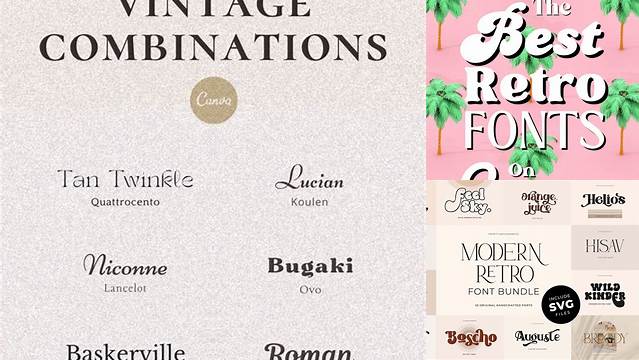
Retro Fonts On Canva: Design Like Mad Men!
Hey guys! Let's dive into the awesome world of retro sans serif fonts you can find right on Canva. If you're looking to add a touch of vintage charm to your designs, you've come to the right place. From groovy 70s vibes to sleek mid-century modern looks, we'll explore how to use these fonts to make your projects pop!
1. Understanding Retro Sans Serif Fonts
Retro sans serif fonts evoke a sense of nostalgia, bringing back design elements from past eras. These fonts often feature clean lines and geometric shapes, making them versatile for various design applications. Understanding retro sans serif fonts involves appreciating their historical context and how they can be used to create specific moods and styles.
When choosing a retro sans serif font, consider the overall tone of your project. Are you aiming for a playful and whimsical feel, or something more sophisticated and elegant? Different fonts will convey different emotions, so it's essential to select one that aligns with your design goals. For instance, a font with rounded edges might be perfect for a children's book, while a more angular font could be ideal for a branding project targeting a modern audience.
Experiment with different font pairings to enhance your designs. Combining a retro sans serif font with a contrasting serif font can create visual interest and balance. Play around with font sizes, weights, and styles to achieve the desired effect. Remember, the key is to create a harmonious composition that is both visually appealing and easy to read. Incorporating retro sans serif fonts into your design toolkit can significantly elevate your creative projects, offering a unique blend of vintage charm and modern appeal.
2. Top Retro Sans Serif Fonts Available on Canva
Canva offers a wide array of retro sans serif fonts that can add character and flair to your designs. Some popular choices include fonts inspired by the Art Deco era, mid-century modernism, and the groovy 1970s. Each font has its unique personality, making it easy to find the perfect fit for your project.
One standout option is a font reminiscent of classic movie posters from the 1950s. Its bold, geometric shapes and clean lines exude a sense of timeless elegance. Another great choice is a font that captures the playful spirit of the 1970s, with its rounded edges and whimsical curves. This font is perfect for creating eye-catching headlines and branding materials.
When exploring retro sans serif fonts, consider how they interact with other design elements. Experiment with different color palettes, textures, and imagery to create a cohesive and visually appealing composition. Don't be afraid to push the boundaries and try new things – the key is to have fun and let your creativity shine. By leveraging the diverse range of retro sans serif fonts available on Canva, you can create designs that are both stylish and timeless. Additionally, these fonts can evoke a sense of nostalgia and connect with your audience on a deeper level.
Once you've found a font that you like, take some time to experiment with its different styles and weights. Many retro fonts come in multiple variations, allowing you to fine-tune the look and feel of your design. Pay attention to the font's spacing and kerning, as these can significantly impact its readability and visual appeal. By taking the time to explore Canva's font library and experiment with different options, you can find the perfect retro font to bring your design vision to life. Remember to save your favorite fonts for easy access in future projects.
4. Designing with Retro Sans Serif Fonts in Canva
Designing with retro sans serif fonts in Canva opens up a world of creative possibilities. These fonts can add a unique touch to various projects, from posters and logos to social media graphics and presentations. The key is to use them strategically to create a cohesive and visually appealing design.
When working with retro sans serif fonts, consider the overall aesthetic you're aiming for. Are you going for a bold and vibrant look, or something more subtle and understated? The font you choose should align with the overall mood and message of your design. Experiment with different color palettes and imagery to complement the font and enhance its retro appeal.
One effective technique is to pair retro sans serif fonts with vintage-inspired illustrations and graphics. This can create a sense of authenticity and transport your audience back in time. Pay attention to the spacing and layout of your design, ensuring that the font is legible and visually balanced. Don't be afraid to experiment with different font sizes and weights to create visual hierarchy and draw attention to key elements. By mastering the art of designing with retro sans serif fonts in Canva, you can create designs that are both stylish and memorable. It’s all about playing around and seeing what works best for your particular project!
5. Combining Retro Fonts with Modern Elements
Combining retro fonts with modern elements is a fantastic way to create designs that are both timeless and contemporary. This approach allows you to blend the charm of vintage typography with the sleekness of modern design principles, resulting in a unique and eye-catching aesthetic.
One effective technique is to pair retro sans serif fonts with minimalist layouts and clean, modern imagery. This creates a sense of contrast that can be visually striking. For example, you could use a bold, retro-inspired font for a headline and then pair it with a simple, geometric background. Alternatively, you could use a retro font for body text and then incorporate modern illustrations or photographs.
When combining retro fonts with modern elements, it's important to maintain a sense of balance. Avoid overwhelming your design with too many conflicting styles. Instead, focus on creating a harmonious composition that feels both cohesive and visually appealing. Experiment with different color palettes and textures to enhance the overall effect. By mastering the art of blending retro and modern elements, you can create designs that are both stylish and timeless. This approach is perfect for branding projects, website designs, and any other creative endeavor where you want to make a statement.
6. Best Practices for Using Retro Fonts
Using retro fonts effectively requires a thoughtful approach. While these fonts can add a lot of character to your designs, it's important to use them judiciously to avoid overwhelming your audience. Here are some best practices to keep in mind:
First, consider the context of your design. Retro fonts are most effective when they align with the overall theme and message of your project. If you're designing a poster for a 1970s-themed party, a groovy, retro-inspired font would be a perfect choice. However, if you're designing a website for a modern tech company, a more contemporary font might be more appropriate.
Second, pay attention to readability. While retro fonts can be visually appealing, they can also be difficult to read if they're not used correctly. Choose fonts that are legible at the size you'll be using them, and avoid using too many different fonts in the same design. Stick to a maximum of two or three fonts to maintain a sense of visual harmony.
Third, experiment with different font pairings. Combining a retro sans serif font with a contrasting serif font can create visual interest and balance. Just make sure that the fonts you choose complement each other and don't clash. By following these best practices, you can use retro fonts to create designs that are both stylish and effective.
7. Color Palettes that Complement Retro Fonts
Choosing the right color palette is crucial when working with retro fonts. Certain colors can enhance the vintage feel of these fonts, while others might clash and detract from their appeal. Here are some color palettes that tend to work well with retro fonts:
- Earthy Tones: Think warm browns, oranges, and yellows. These colors evoke a sense of nostalgia and pair perfectly with fonts inspired by the 1970s.
- Pastels: Soft pinks, blues, and greens can create a dreamy, vintage aesthetic that complements fonts from the 1950s and 1960s.
- Bold and Bright: Don't be afraid to use vibrant colors like red, blue, and yellow. These colors were popular in mid-century modern design and can add a playful touch to your designs.
When selecting a color palette, consider the overall mood and message of your design. Are you aiming for a fun and playful vibe, or something more sophisticated and elegant? Choose colors that align with your design goals and enhance the retro appeal of your fonts. Experimenting with different color combinations is key to finding the perfect palette for your project. Remember, the goal is to create a visually appealing and cohesive design that captures the essence of the retro aesthetic.
8. Creating Logos with Retro Sans Serif Fonts on Canva
Creating logos with retro sans serif fonts on Canva can give your brand a unique and memorable identity. These fonts evoke a sense of nostalgia and can help your logo stand out from the crowd. Here's how to make the most of retro fonts in your logo design:
Start by choosing a font that aligns with your brand's personality and values. Retro sans serif fonts come in a variety of styles, from bold and playful to sleek and sophisticated. Select a font that reflects the essence of your brand and appeals to your target audience.
Next, consider the overall design of your logo. Keep it simple and memorable, and avoid using too many different elements. A well-designed logo should be easily recognizable and scalable, so it looks great on everything from business cards to websites.
Experiment with different color palettes and imagery to complement your font and enhance the retro appeal of your logo. Use colors that evoke a sense of nostalgia and align with your brand's aesthetic. Don't be afraid to get creative and try new things. The key is to create a logo that is both visually appealing and representative of your brand.
9. Social Media Graphics Using Retro Fonts
Using retro fonts in your social media graphics is a great way to grab attention and create a cohesive brand identity. These fonts can add a unique touch to your posts and help you stand out from the sea of content on social media. Here's how to use retro fonts effectively in your social media graphics:
Choose fonts that are legible and visually appealing. Social media graphics are often viewed on small screens, so it's important to select fonts that are easy to read. Avoid using fonts that are too decorative or intricate, as these can be difficult to decipher on smaller devices.
Use retro fonts to create eye-catching headlines and captions. These fonts can add a touch of personality to your posts and help you convey your message in a fun and engaging way. Experiment with different font sizes and weights to create visual hierarchy and draw attention to key elements.
Pair retro fonts with complementary colors and imagery. Choose colors that align with your brand's aesthetic and evoke the desired mood. Use high-quality images that are visually appealing and relevant to your content. By using retro fonts effectively in your social media graphics, you can create a consistent brand identity and engage your audience.
10. Website Design with Retro Sans Serif Fonts
Incorporating retro sans serif fonts into your website design can create a unique and memorable user experience. These fonts evoke a sense of nostalgia and can help your website stand out from the crowd. However, it's important to use retro fonts strategically to ensure that your website remains user-friendly and accessible.
Choose fonts that are legible and easy to read. Website visitors should be able to quickly scan your content and find the information they need. Avoid using fonts that are too decorative or intricate, as these can be difficult to read on screen.
Use retro fonts to create visually appealing headlines and subheadings. These fonts can add a touch of personality to your website and help you convey your message in a fun and engaging way. Experiment with different font sizes and weights to create visual hierarchy and draw attention to key elements.
Pair retro fonts with complementary colors and imagery. Choose colors that align with your brand's aesthetic and evoke the desired mood. Use high-quality images that are visually appealing and relevant to your content. By using retro fonts effectively in your website design, you can create a unique and engaging online presence that resonates with your target audience.
11. Retro Font Pairing Ideas for Canva
Finding the perfect font pairing can be tricky, but when it comes to retro fonts, some combinations just sing! Think about pairing a bold, chunky sans serif with a delicate script font for a cool contrast. Or, try matching a clean, geometric sans serif with a slightly more ornate serif for a touch of elegance.
The key is to experiment and see what works best for your design. Canva makes it easy to try out different font combinations and see how they look together. Don't be afraid to mix and match until you find a pairing that you love.
Another great tip is to consider the overall mood of your design. If you're going for a fun, playful vibe, try pairing two contrasting retro fonts. If you're aiming for a more sophisticated look, stick to a more classic pairing with a subtle sans serif and a refined serif. Remember, the right font pairing can elevate your design and make it truly stand out!
12. Free vs. Premium Retro Fonts on Canva
Canva offers both free and premium retro fonts, so you have plenty of options to choose from regardless of your budget. Free fonts are a great way to get started and experiment with different styles, while premium fonts offer more unique and high-quality designs.
When choosing between free and premium fonts, consider the specific needs of your project. If you're working on a small, personal project, a free font might be all you need. However, if you're designing a logo or branding materials for a business, investing in a premium font can be worth it for the added quality and uniqueness.
Canva's premium fonts are often designed by professional typographers and offer more advanced features, such as ligatures and alternate characters. They also come with a commercial license, which means you can use them for both personal and commercial projects without any restrictions. So, weigh your options and choose the fonts that best fit your needs and budget!
13. Retro Fonts for Posters and Flyers
Designing posters and flyers with retro fonts can really make your message pop! The right font can instantly transport your audience back in time and create a sense of nostalgia. Think about using bold, eye-catching fonts for headlines and smaller, more legible fonts for body text.
When choosing retro fonts for posters and flyers, consider the overall theme and message of your design. If you're promoting a 1950s-themed event, look for fonts that evoke that era. If you're creating a poster for a modern business, choose a retro font that still feels contemporary and relevant.
Color also plays a big role in poster and flyer design. Experiment with different color combinations to find a palette that complements your font and enhances the overall retro feel. Don't be afraid to use bold, contrasting colors to grab attention and make your design stand out! Just make sure your text can still be read easily!
14. Retro Fonts for Branding
Using retro fonts for branding can help your business stand out and create a memorable identity. A well-chosen font can convey your brand's personality and values, and create a connection with your target audience. Whether you want to give off a nostalgic feel or not, vintage fonts can give a brand that little something extra.
When choosing retro fonts for branding, consider your brand's overall aesthetic. Are you going for a fun, playful vibe, or something more sophisticated and elegant? The font you choose should align with your brand's identity and appeal to your target market.
It's also important to choose a font that is legible and versatile. Your logo and branding materials will be used in a variety of contexts, so it's important to choose a font that looks good in both small and large sizes. So, you might want to stick with more streamlined fonts for logos. Use more intricate fonts for ads!
15. Retro Font Trends in 2024
Even though retro fonts are all about the past, they're constantly evolving and adapting to current design trends. In 2024, we're seeing a resurgence of bold, geometric fonts inspired by the mid-century modern era.
Another trend is the use of retro fonts with a modern twist. Designers are pairing vintage fonts with clean, minimalist layouts and contemporary color palettes to create a fresh and unique look. We also see a lot of 70s inspired fonts with bubble lettering making its way to the scene!
Experimenting with font pairings is another popular trend. Designers are combining different retro fonts to create visual interest and contrast. This can be a great way to add personality to your designs and make them stand out. All in all, you can see these trends in design today.
16. Creating a Vintage Aesthetic with Canva Fonts
Creating a vintage aesthetic with Canva fonts is easier than you might think! By combining the right fonts with the right colors and imagery, you can easily transport your audience back in time. When choosing retro fonts for a vintage design, consider the specific era you're trying to evoke.
For a 1950s-inspired design, look for fonts with a clean, mid-century modern feel. Pair them with pastel colors and vintage illustrations to complete the look. If you're going for a 1970s vibe, choose bold, groovy fonts and earthy color palettes.
Another key to creating a vintage aesthetic is to pay attention to the details. Use textures and patterns to add depth and dimension to your designs. Consider adding grain or noise to your images to give them a worn, aged look. Also, be sure to keep the fonts readable for maximum appeal.
17. The Psychology of Retro Fonts
Retro fonts have the power to evoke specific emotions and associations. They can tap into our sense of nostalgia and remind us of simpler times. When choosing a retro font for your design, consider the psychological impact it will have on your audience.
Fonts from the mid-century modern era often evoke feelings of optimism and progress. Fonts from the 1970s, on the other hand, can evoke feelings of warmth and nostalgia. The key is to choose a font that aligns with the overall mood and message of your design.
Also, think about your audience when picking a font. Different generations will likely have different responses to fonts, based on which era they grew up in. This can really affect a user's experience.
18. How to Use Retro Fonts for Headlines
Using retro fonts for headlines can be a great way to grab attention and make a statement. A well-chosen font can instantly convey the mood and message of your design. When choosing a retro font for a headline, consider the overall tone you want to create.
For a bold, impactful headline, choose a chunky, geometric font. For a more sophisticated headline, opt for a clean, elegant font. It's also important to consider the size and weight of your font. A headline should be large enough to be easily read, but not so large that it overwhelms the rest of your design.
19. Retro Fonts and Readability: Finding the Balance
While retro fonts can add a lot of character to your designs, it's important to ensure that they're still readable. Some retro fonts can be quite decorative or stylized, which can make them difficult to read, especially in smaller sizes.
When choosing retro fonts, prioritize readability. Look for fonts with clear, well-defined letterforms. Avoid fonts that are too condensed or too ornate. It's also important to consider the contrast between your font and your background. Make sure there's enough contrast to ensure that your text is easy to read.
20. Advanced Tips for Using Retro Fonts in Canva
Ready to take your retro font game to the next level? Here are some advanced tips for using retro fonts in Canva. Try experimenting with different font effects, such as shadows, outlines, and glows, to add depth and dimension to your designs. You can also use Canva's masking tool to create unique and interesting effects with your fonts. This is great when you want a bold design.
Another tip is to use Canva's animation tools to bring your retro fonts to life. You can animate your fonts to create eye-catching headlines and social media graphics. Just be sure to use animations sparingly and avoid overwhelming your audience.
21. Monospaced Retro Fonts: A Unique Style
Monospaced fonts, where each character takes up the same amount of horizontal space, have a unique retro appeal. They're often associated with typewriters and early computer terminals, giving them a distinct vintage vibe. Using monospaced retro fonts can add a touch of authenticity to your designs and make them stand out.
When using monospaced retro fonts, consider their unique characteristics. They can be a bit more challenging to read than proportional fonts, so it's important to use them judiciously. Use them for headlines, subheadings, or short blocks of text to create a visual impact.
22. The Influence of Art Deco on Retro Fonts
The Art Deco movement of the 1920s and 1930s had a profound influence on font design. Art Deco fonts are characterized by their geometric shapes, clean lines, and luxurious details. Using Art Deco-inspired retro fonts can add a touch of elegance and sophistication to your designs.
When choosing Art Deco retro fonts, look for fonts with strong geometric forms and decorative elements. Pair them with rich colors and luxurious textures to create a truly stunning design. All in all, Art Deco is a great way to add an intriguing layer to designs.
23. Retro Script Fonts vs. Retro Sans Serif Fonts
When it comes to retro fonts, you have two main categories to choose from: script fonts and sans serif fonts. Script fonts are cursive and flowing, while sans serif fonts are clean and geometric. Both types of fonts can be used to create a retro aesthetic, but they convey different moods and messages.
Script fonts are often associated with elegance and femininity, while sans serif fonts are often associated with modernity and simplicity. When choosing between retro fonts, consider the overall tone you want to create.
24. Designing Retro-Themed Invitations with Canva
Designing retro-themed invitations with Canva is a fun and creative way to set the tone for your event. Choose retro fonts that align with the theme of your party or celebration. Pair them with vintage illustrations, patterns, and color palettes to create a cohesive and visually appealing design.
When designing retro invitations, pay attention to the details. Use high-quality images and textures to add depth and dimension to your designs. Consider adding handwritten elements or custom illustrations to make your invitations even more personal and unique.
25. Creating Retro Mockups with Canva and Fonts
Creating retro mockups with Canva and fonts is a great way to showcase your designs in a realistic and visually appealing way. Use retro fonts to create a vintage-inspired design, then place it on a mockup template to see how it would look in real life. This can be a great way to get feedback on your designs and make sure they're visually effective. All in all, this can be a great boost to your marketing.
26. Retro Typography Tips and Tricks
Mastering retro typography takes practice, but here are some essential tips and tricks to elevate your designs. Embrace hierarchy: Use different font sizes and weights to guide the viewer's eye. Experiment with textures: Add subtle textures to your fonts to give them a vintage feel. Create custom letterforms: Use Canva's shape tools to modify existing fonts and create unique letterforms. Use these skills to make a splash!
27. The Future of Retro Fonts: Predictions and Trends
What does the future hold for retro fonts? As design trends continue to evolve, we can expect to see new and innovative ways to use these timeless fonts. One prediction is that we'll see more designers combining retro fonts with modern design elements to create a fresh and unique look. We'll likely also see the evolution of font design itself.
28. Retro Font Generators: Are They Worth It?
Retro font generators can be a quick and easy way to create vintage-inspired text effects. However, it's important to consider the limitations of these tools. Font generators often produce low-quality results and lack the nuance and detail of professionally designed fonts. In many cases, it's better to invest in high-quality retro fonts from a reputable source.
29. Exploring Geometric Retro Fonts in Canva
Geometric retro fonts, characterized by their clean lines and precise shapes, are a popular choice for creating a modern vintage aesthetic. These fonts are often inspired by the Bauhaus movement and the mid-century modern era. When exploring geometric retro fonts in Canva, look for fonts with strong, angular forms and a sense of balance and harmony.
30. Where to Find Inspiration for Retro Font Designs
Finding inspiration for retro font designs is all about immersing yourself in the visual culture of the past. Visit museums and art galleries to see examples of vintage typography. Browse vintage magazines, posters, and advertisements. Look at old photographs and postcards. By studying the design trends of the past, you can gain a deeper understanding of retro fonts and how to use them effectively in your own work.